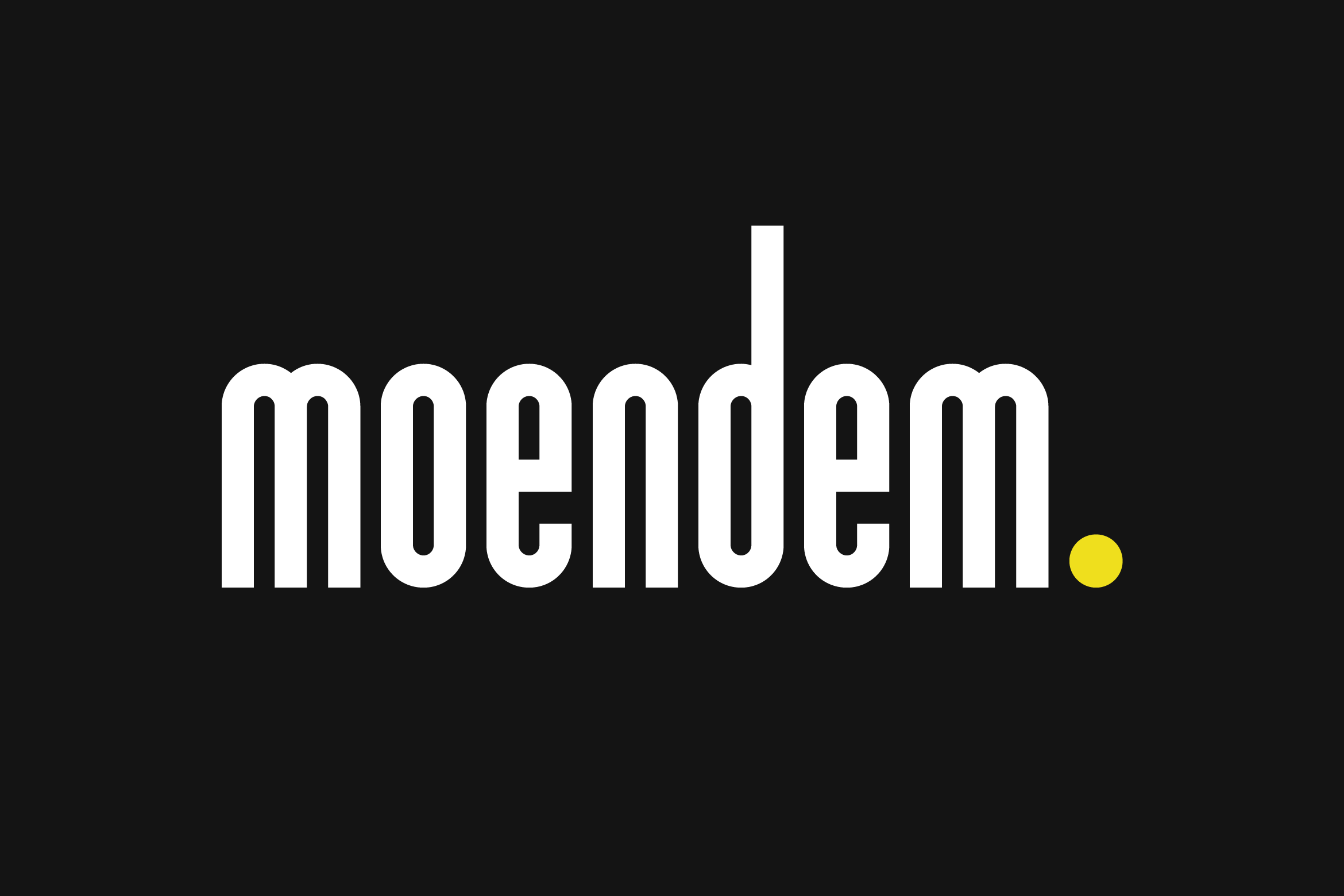
- Moendem Condensed Sans Serif Font
Moendem is a strong and stylish condensed sans serif font designed to maximize impact while saving space. Featuring clean lines, tall proportions, and a sleek structure, Moendem is ideal for branding, posters, headlines, editorial layouts, and digital content that demands attention.
Its condensed form makes it perfect for bold typography in limited spaces without compromising readability. Whether used for modern logos or striking social media graphics, Moendem combines clarity with contemporary aesthetics.
The font includes uppercase and lowercase letters, numerals, punctuation, multilingual support, and stylistic alternates for creative flexibility.
Stand out with Moendem — the condensed sans serif font that delivers boldness and sophistication in every design.